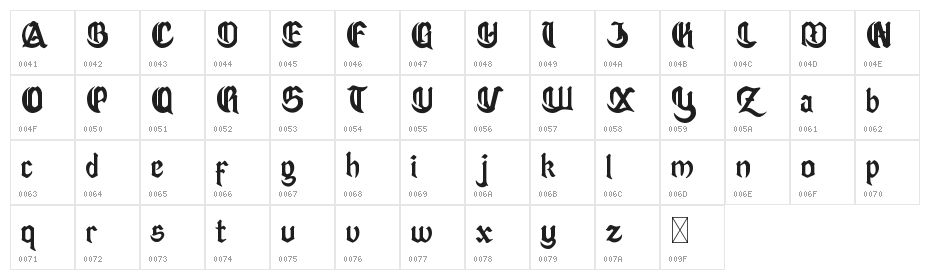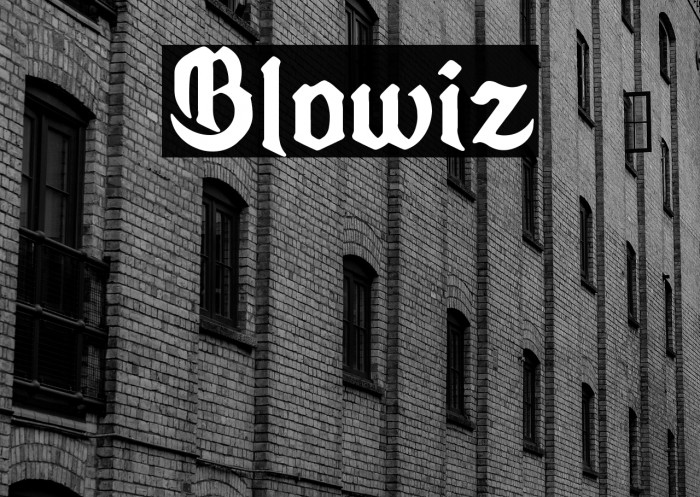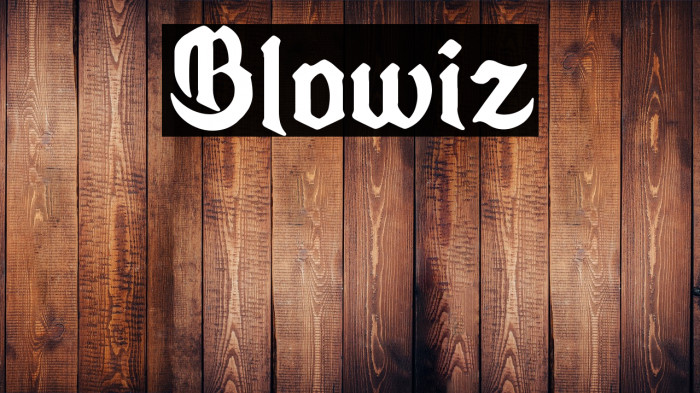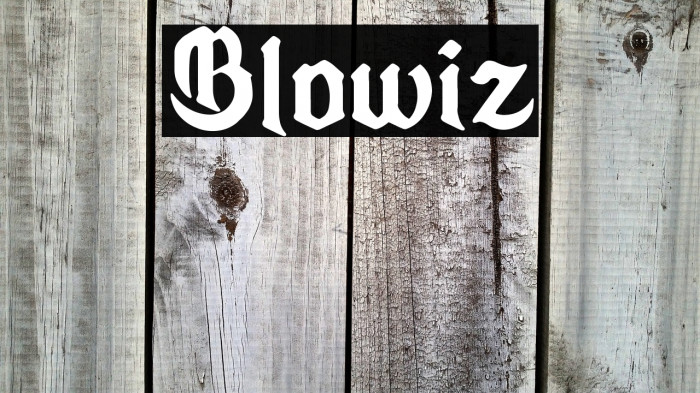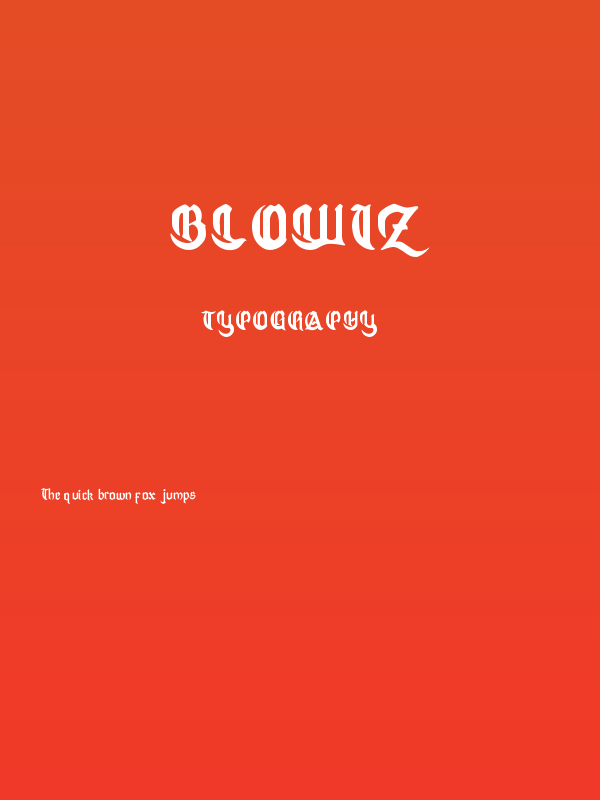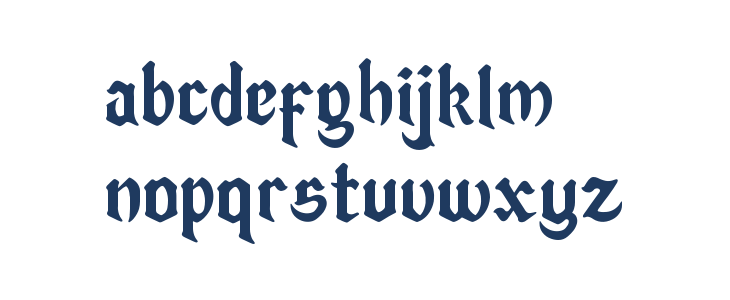
Blowiz Font
Blowiz Description
This font features a bold and intricate design, reminiscent of traditional Blackletter styles. The characters are highly stylized with sharp, angular lines and dramatic curves, creating a sense of historical elegance and formality. The uppercase letters are particularly ornate, with elaborate serifs and flourishes that enhance their visual impact. The lowercase letters maintain the same level of detail, ensuring consistency throughout the typeface. This font is ideal for projects that require a touch of classic sophistication and a nod to medieval or Gothic aesthetics.
| Use Case | Headlines, Logos, Decorative text |
| Proposed Projects | Suitable for use in historical documents, certificates, book covers, posters, and branding that seeks a classic or Gothic touch. |